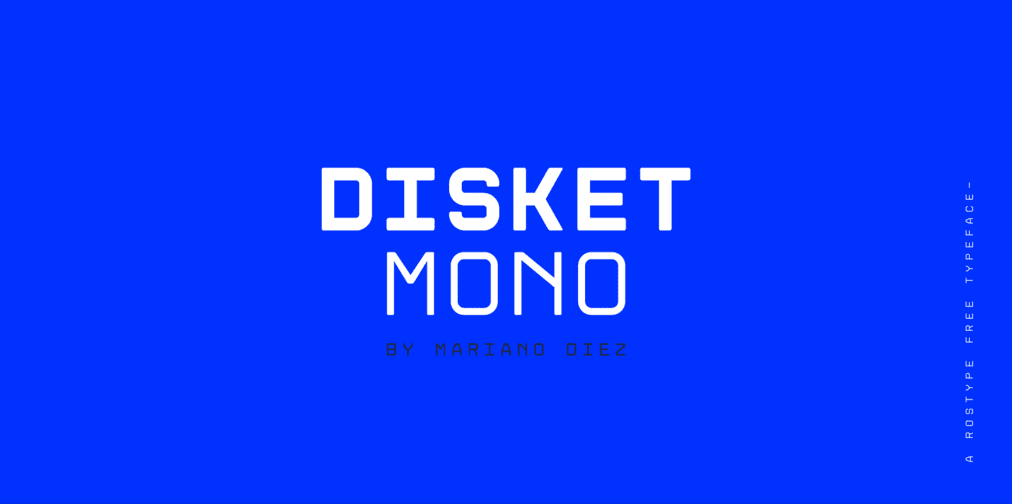
Experimental typography is one of the trends that will be hyped in 2024. Thus, many fonts will be involved more in various projects, from branding to website design creation. Typeface not only helps in delivering the message better, but it also makes your design visually aesthetic and pleasing. With typography as the focal point, you will find more display and serif font types, though it doesn’t mean any san serifs are on the rise. Find out the upcoming popular fonts in 2024 here.
No matter what year we are in, the touch from the past always gives a nostalgic color to the present and future. Restora helps bring the old vibe to your designs. It has a versatile mix of old-style Roman serif style typefaces with beautiful letterforms. Its versatility allows this type of family to be used in various design project themes.
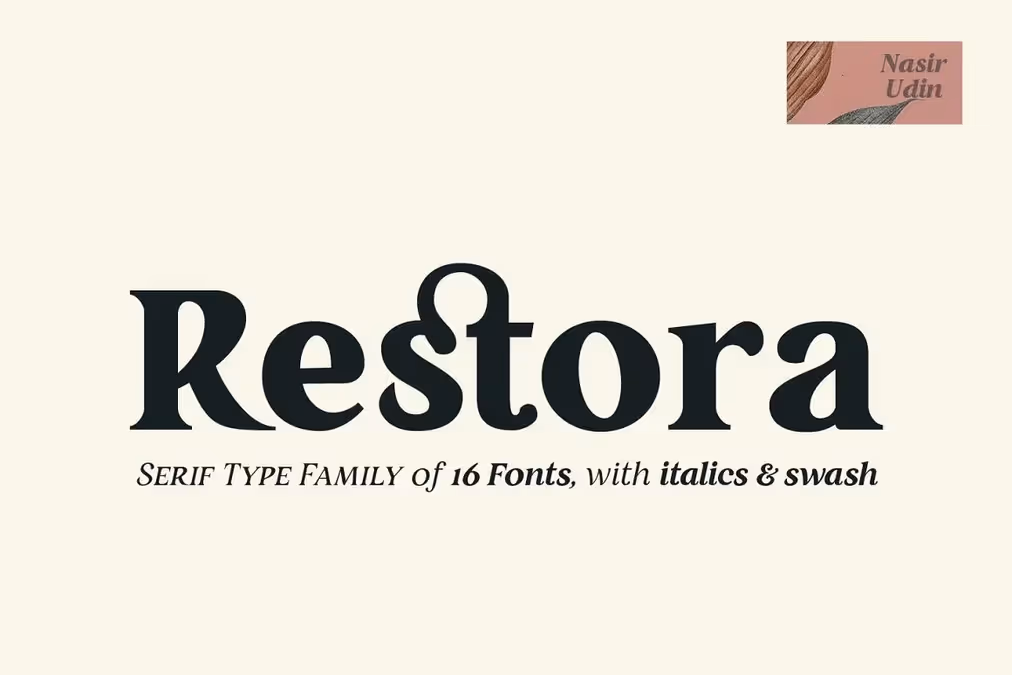
Restora serif type family provides you with 16 fonts with italics. The Open Type features provided swash, beautiful ligatures, and stylistic alternates. Therefore, you can have a unique look for book covers, editorial, branding, advertising, and more.
One of the popular fonts in 2024 comes from the Modern Gothic style, such as Moxy Rush from Alit Design. It is a classic black letter font. However, it blends with a captivating contemporary twist that can breathe life into your typography works. The font supports multi-language use, ligatures, and alternative characters. Unfortunately, it is free for personal use only but it still is perfect for your personal designs, projects, and artworks to high sophistication and creativity.
Although san serif is not the highlight of the year trend, Misto Font has its place in the designer’s heart. It is not a mere san serif since it is also a display typeface with an extravagant design inspired by Slavutych’s postmodernist architecture. The font designed by Katerina Korolevtseva is available for multilingual use and supports Latin and Cyrillic.
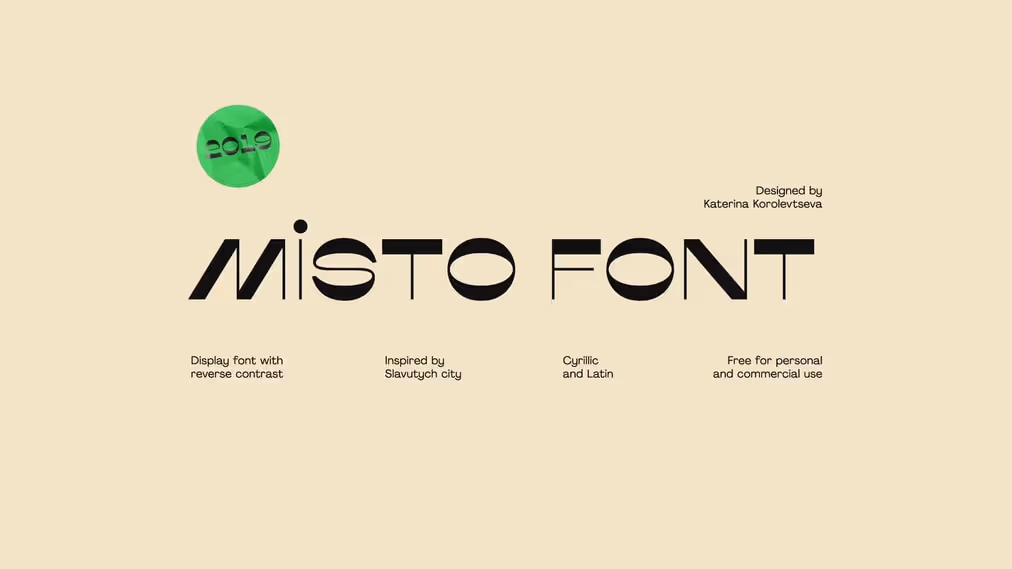
Misto has extra thin lines with all the uppercase letters. It makes it perfect for headlines, logo designs, brand identities, web designs, packaging, and posters. You can use this for personal or commercial since it has both licenses.
Some retro designs may do without any typeface. However, retro design with text will never be complete without retro typefaces and fonts. Maltiner Display, as one of the popular fonts in 2024, is here to strengthen the retro vibe in your design. Since it is specially designed for display settings, it offers a bold yet refined aesthetic for typography excellence.
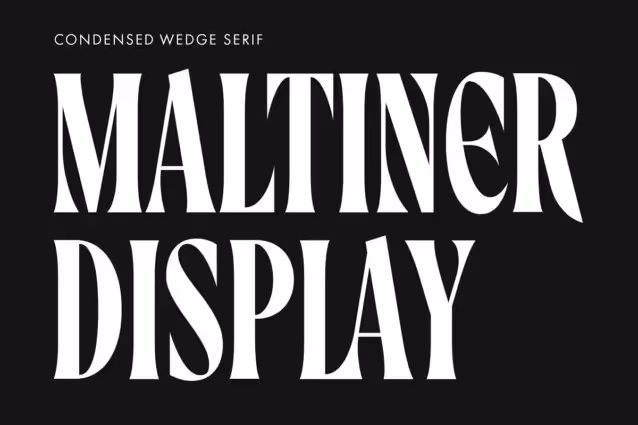
Classic typography and newspaper headlines are the inspiration for this versatile, elegant, and sophisticated condensed wedge serif font. Hence, it will elevate your works, especially for logotypes, editorial layouts, movie titles, posters, postcards, or apparel designs. Get the font for free for your personal use. Or, you can purchase a commercial license to bring the fusion of traditional and modernity to your commercial projects.
Decorative and display types are not all you need for design projects. Sometimes, what you need is a neutral one for its great legibility, simple geometric letter shapes, and low contrast for all styles. This San serif font provides you with quite a lot of styles, up to 22 styles (11 uprights and 11 italics). Besides, it also has enhanced OpenType features with extended language support. So, you can use it for multilingual needs like Latin, Cyrillic, Greek, and Hebrew.
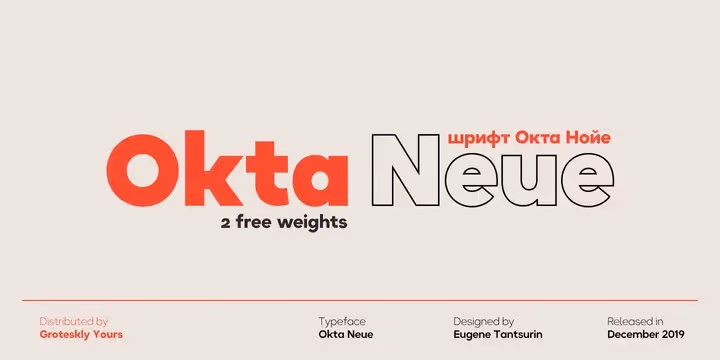
What is this one of the popular fonts in 2024 suitable for? It is suitable for almost all your needs across various applications. You can use it for logos, titles, web layouts, and brandings. It also works well for various font pairings. What’s more important is it is available for personal and commercial use for free. However, for the full version, you still have to purchase it.
To be totally in experimental mode, you can try to grab Glasset Experimental Distort for your projects. The distorted effect creates a unique visual impact that will grab the audience’s attention. Its unconventional appearance will be quite challenging, especially in its legibility. But, if you dare enough to challenge yourself, it can be a daring choice for movie posters, titles, presentation covers, and more.
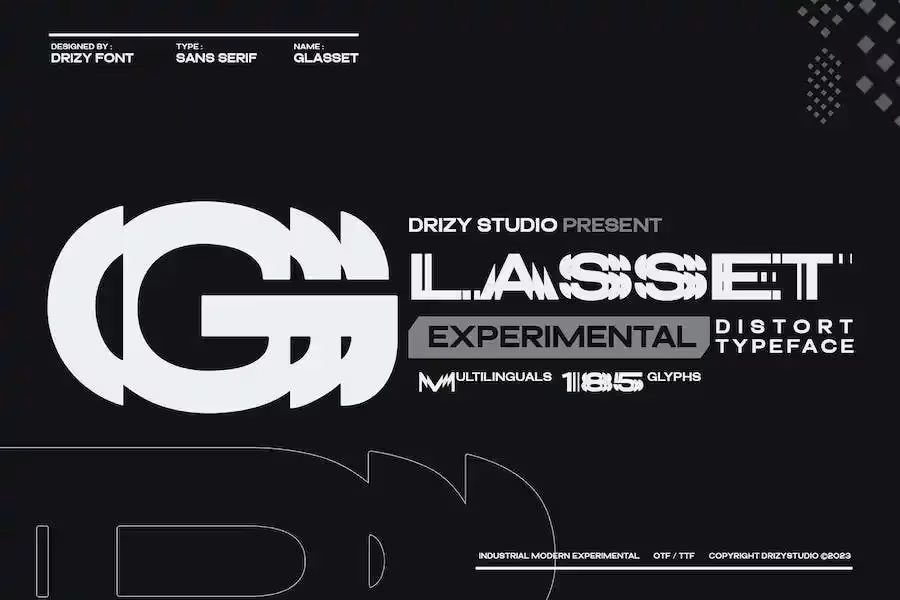
Creating an elegant look will be perfect with the touch of the Argesta serif font family. This serif font has a high-end, refined look, suitable for any luxury and sophisticated design. It is perfect for brand identity, magazine design, packaging, and more for fashion or other luxury products. Inspired by vintage, classic, and even the modern era, it provides nine styles from Hairline to Text.
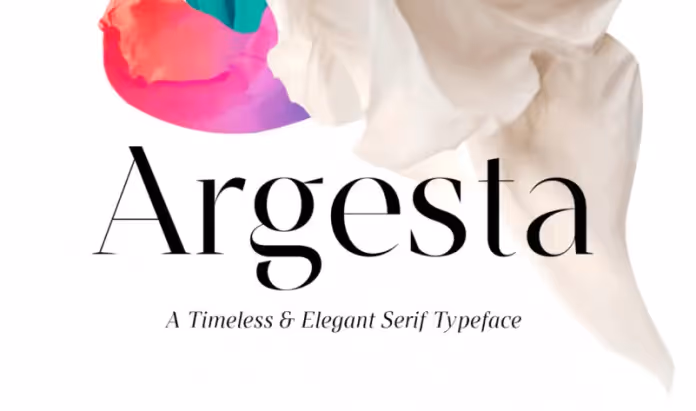
Orlanda is one of the popular fonts in 2024 that was created recently in 2023. This modern serif has a flowing ligature. Furthermore, its formal mood makes it perfect for designing products that require high readability, such as brochures, advertisements, logos, videos, and more. It includes multilingual support. So, you can use the font for any project in various languages you may need from a PC or Mac.
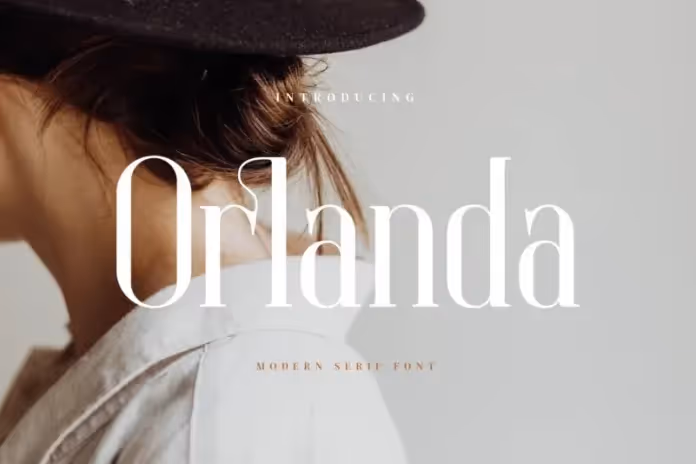
The typography landscape in 2024 showcases a diverse array of fonts, each contributing a unique aesthetic to design projects. With these popular fonts in 2024, designers can elevate their works across a spectrum of applications. Whether it is for branding or editorial layouts, you can embrace the fusion of traditional and modern design elements in the exciting 2024 typography trends.